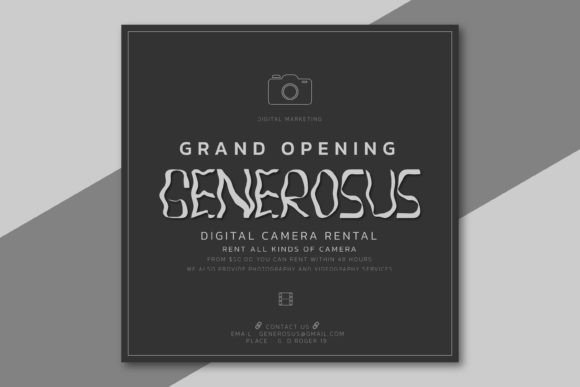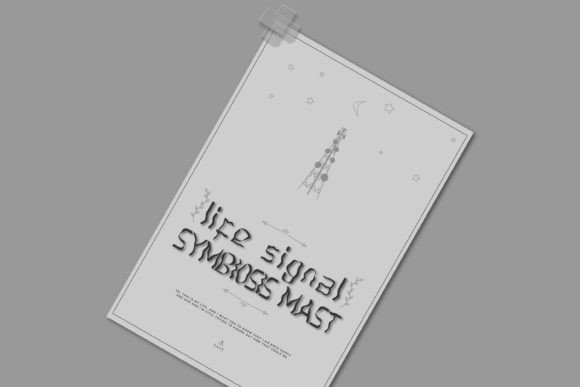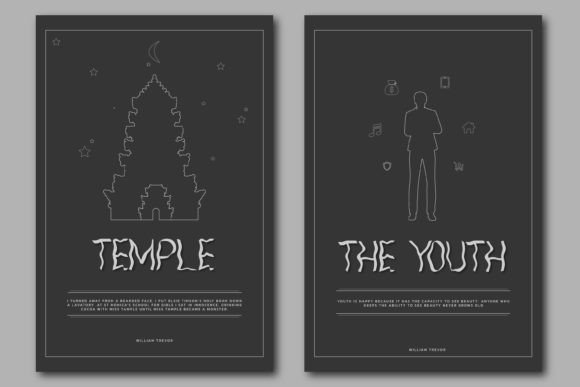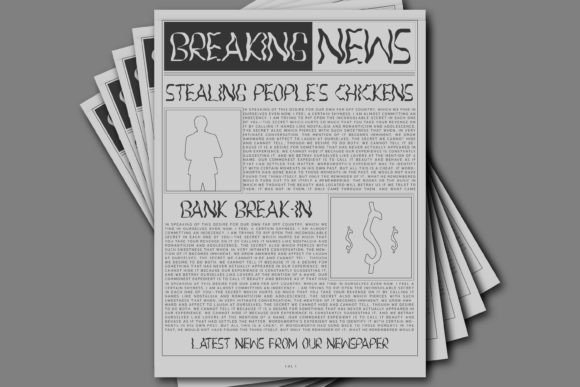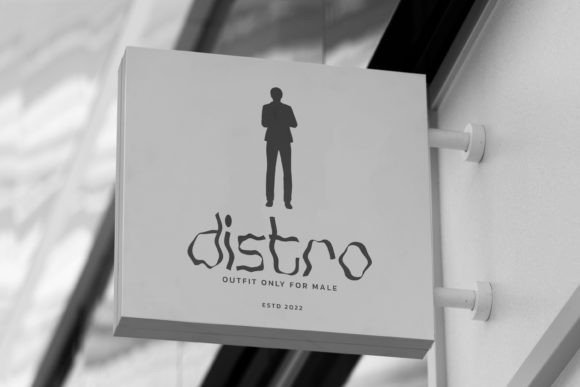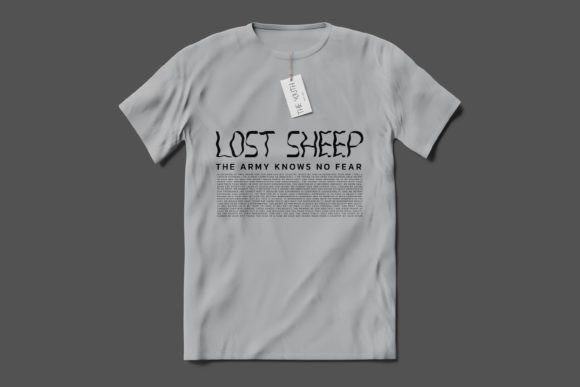
Introduction to Happy Toss Font
Do you ever find yourself staring at a blank design canvas, waiting for that spark of inspiration to strike? For many of us, it’s the moment when we stumble upon the perfect font that sets the tone for our entire creative project. That’s exactly what happened when we discovered the Happy Toss Font – a stylish, wavy, and interesting display font that instantly brightens up any design.
With its whimsical and quirky charm, the Happy Toss Font is a valuable resource for designers looking to add a touch of personality to their work. Whether you’re working on a high-quality design project or simply need a free download to spice up your social media graphics, this font is sure to deliver. And the best part? Its transparent background makes it easy to incorporate into any design, ensuring seamless integration with your other design elements.
Key Features of Happy Toss Font
- High-quality font with a unique, playful design perfect for creative projects.
- Features a transparent background, allowing for easy customization and layering in your design.
- Includes multiple font styles, including regular and bold weights, to add depth and variety to your design.
- Designed with a resolution of 300 DPI, making it suitable for high-quality printing and digital applications.
- Perfect for use in logos, branding materials, and other creative projects where a fun and playful font is desired.
Honest Review: Happy Toss Font
As a designer, I’m always on the lookout for high-quality fonts that can elevate my creative projects. The Happy Toss Font caught my eye with its playful and quirky vibe, and I was excited to dive in and see what it had to offer.
What works well: ✨ The Happy Toss Font is a great choice for designers who want a fun and lighthearted feel in their projects. The font is highly customizable, making it perfect for creative endeavors. I also appreciated the transparent background, which makes it easy to use in various design settings.
What doesn’t work well: ⚠️ One of the main limitations of the Happy Toss Font is its limited character set. While it’s great for headings and titles, it may not be sufficient for large blocks of text. Additionally, the font can be a bit too playful for more formal or professional projects.
Overall impression: I think the Happy Toss Font is a solid addition to any designer’s toolkit. It’s a great resource for creative projects, and its free download makes it accessible to designers of all levels.
- High-quality font with a playful and quirky vibe
- Customizable and easy to use
- Transparent background for versatile design use
- Limited character set may be a limitation for some projects
The Happy Toss Font is a free download design resource perfect for creative projects. This high-quality font features a transparent background, making it ideal for use on various backgrounds.
Tips for Getting the Most Out of Happy Toss Font
To get the most out of the Happy Toss Font, experiment with different font sizes, colors, and combinations to create unique designs. You can also use the Happy Toss Font in conjunction with other design resources to create visually appealing projects.
The Happy Toss Font is ideal for use in a variety of creative projects, including social media graphics, posters, presentations, and documents. Its transparent background makes it easy to use on any background, making it a versatile design resource.